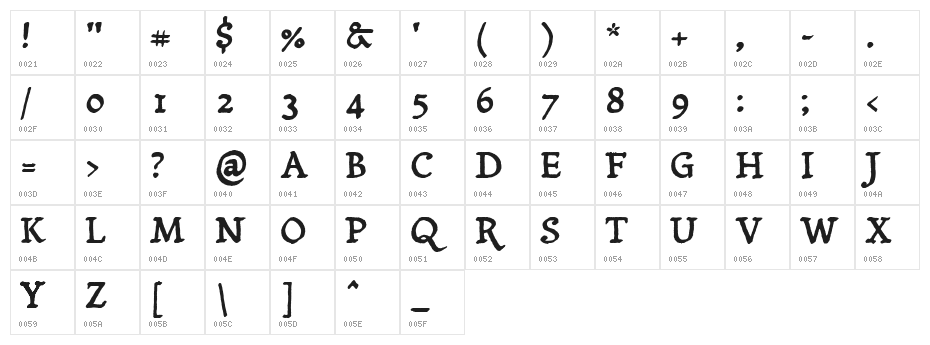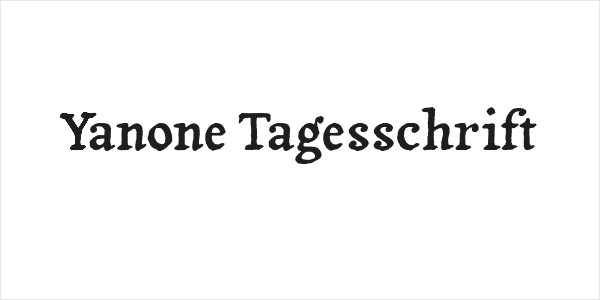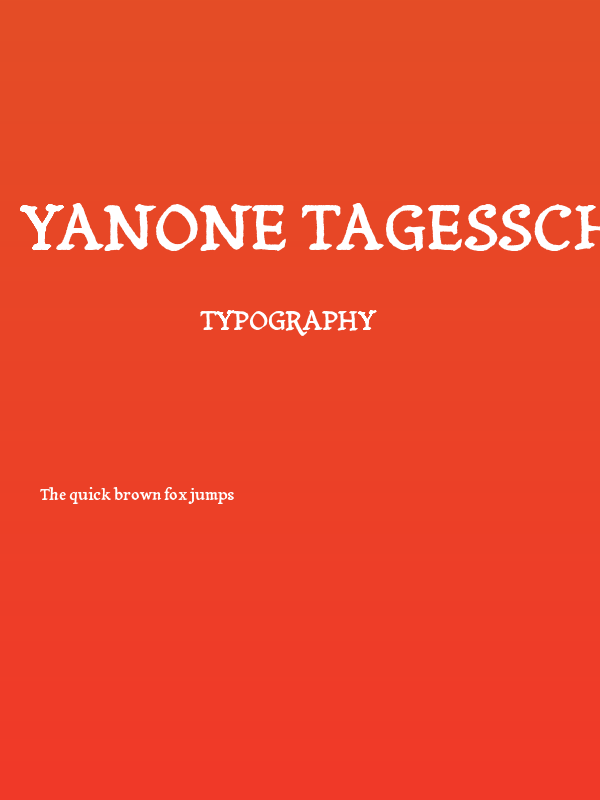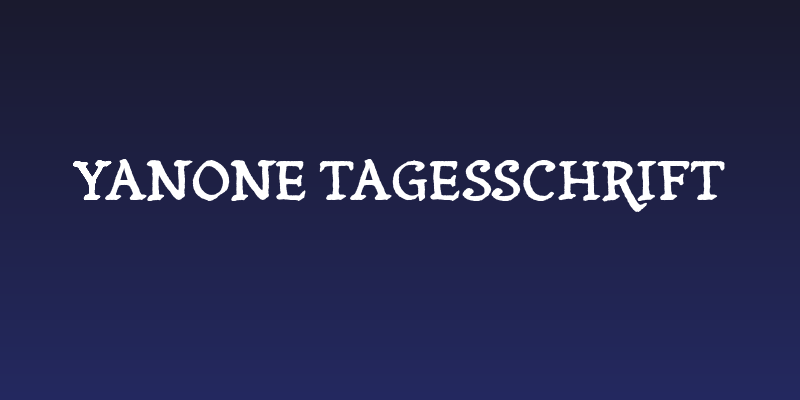
Yanone Tagesschrift Font
Yanone Tagesschrift Description
This font exhibits a unique, hand-drawn aesthetic with a slightly irregular and organic feel. The characters have a rough, textured appearance, reminiscent of brush strokes or ink on paper. The uppercase letters are bold and assertive, while the lowercase letters maintain a consistent style with a slightly more delicate touch. The numerals and special characters follow the same design principles, ensuring a cohesive look across all elements. The font's overall style is both artistic and approachable, making it suitable for projects that require a personal or creative touch.
Overall StyleArtistic
Use CaseHeadlines, Logos, Creative projects
Proposed ProjectsIdeal for creative projects such as posters, invitations, branding, and packaging design where a personal, artistic touch is desired.